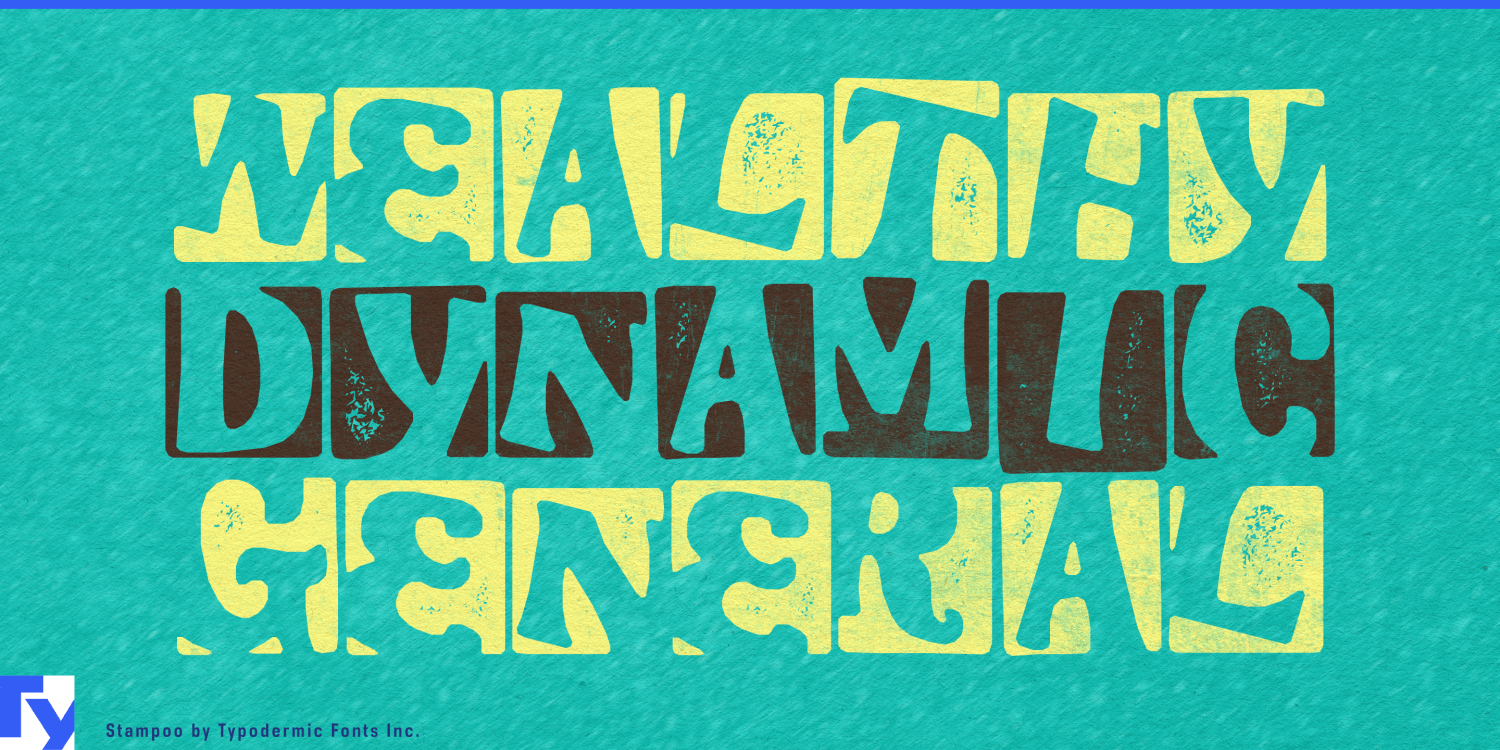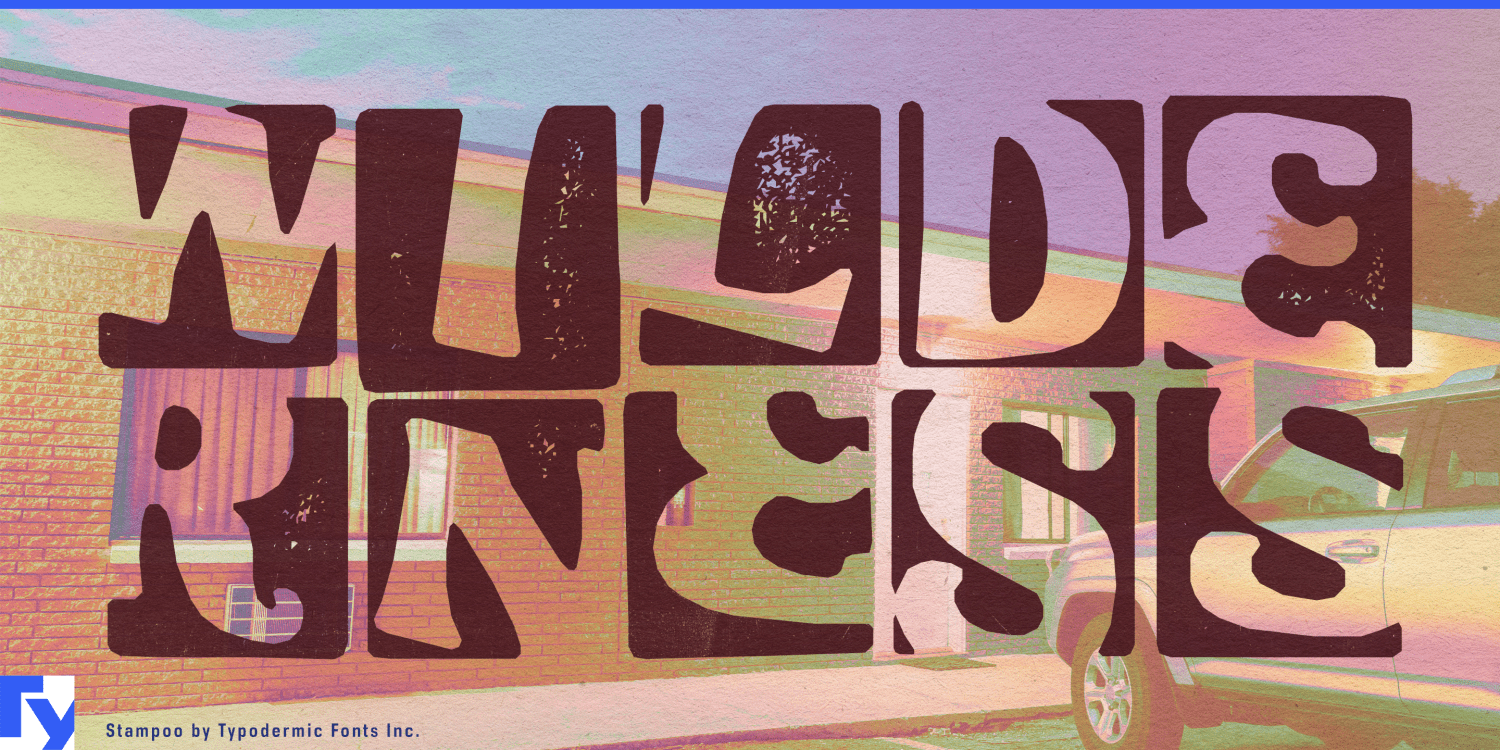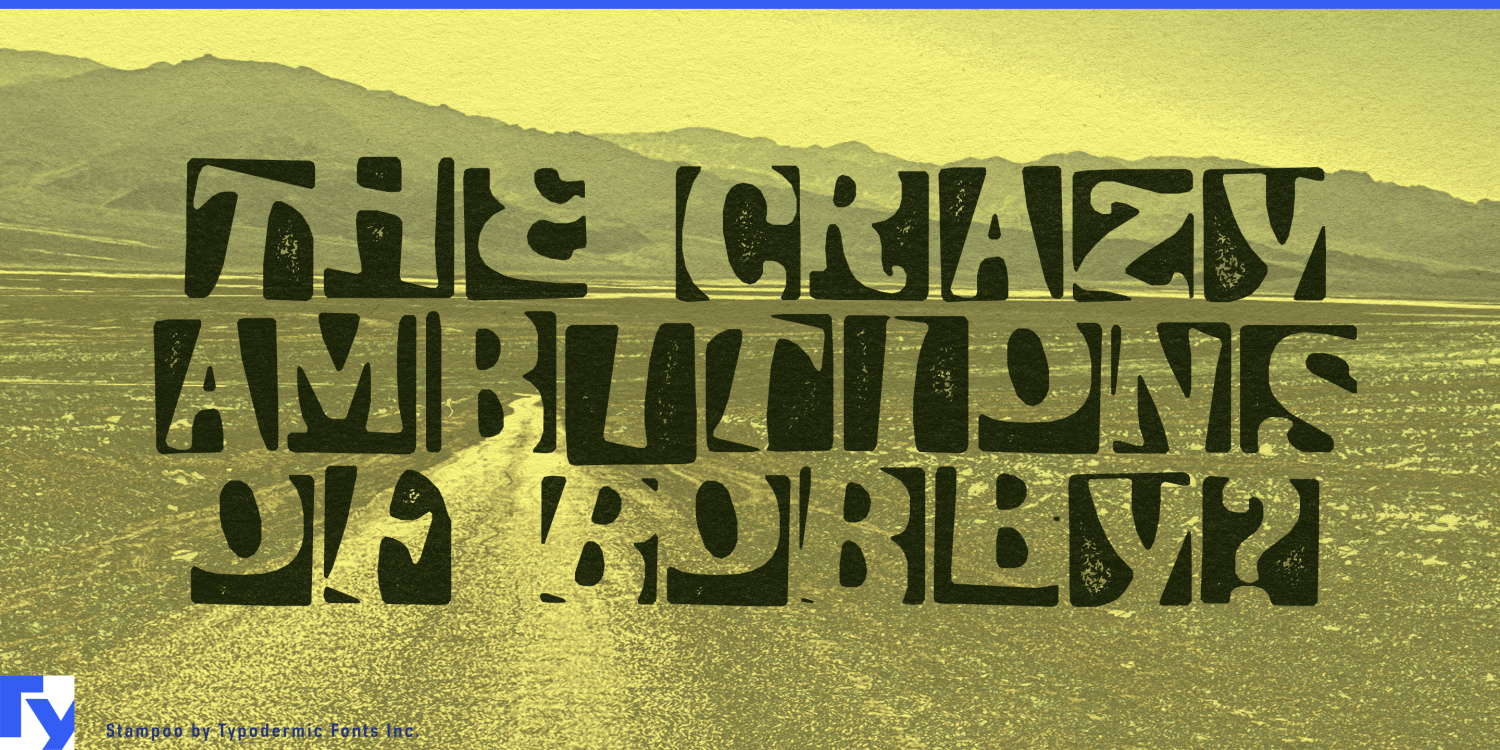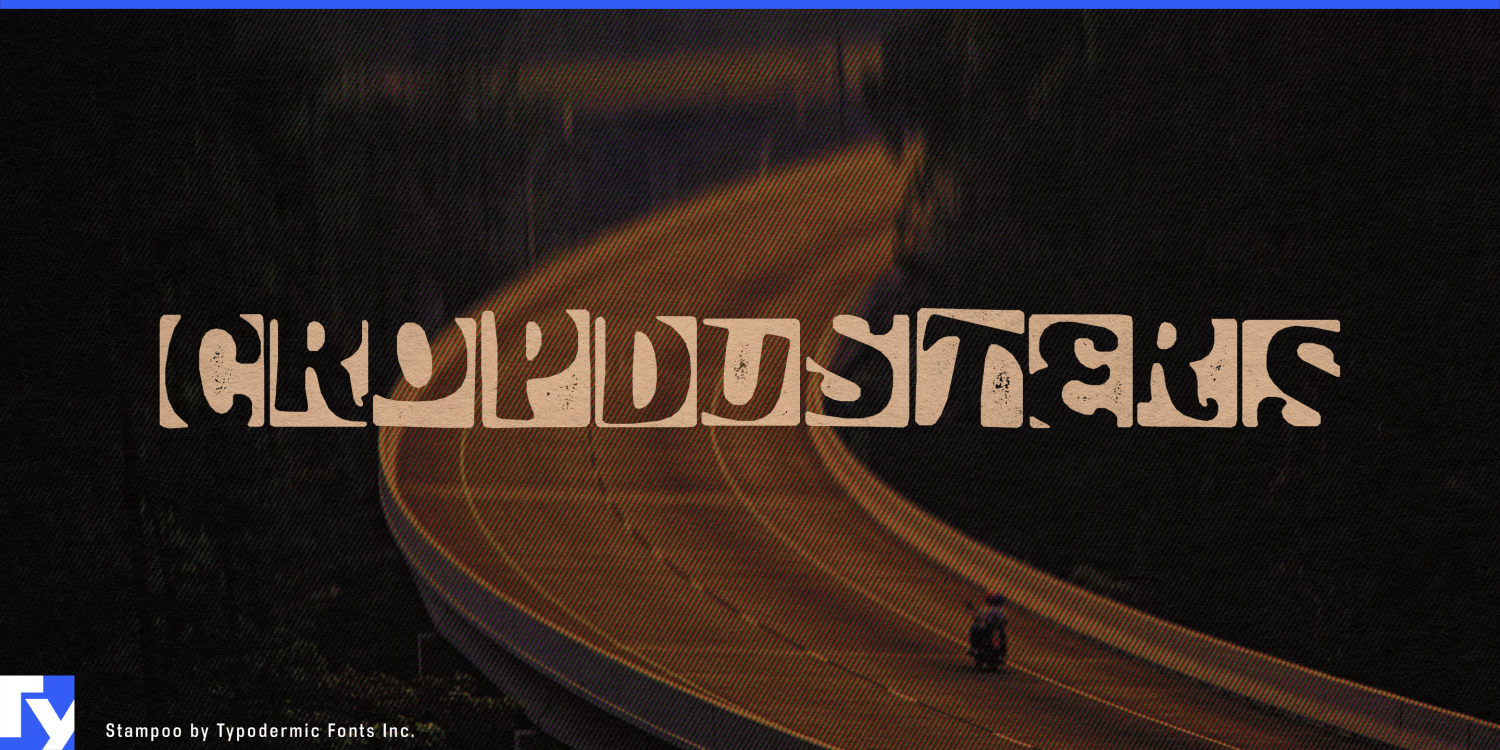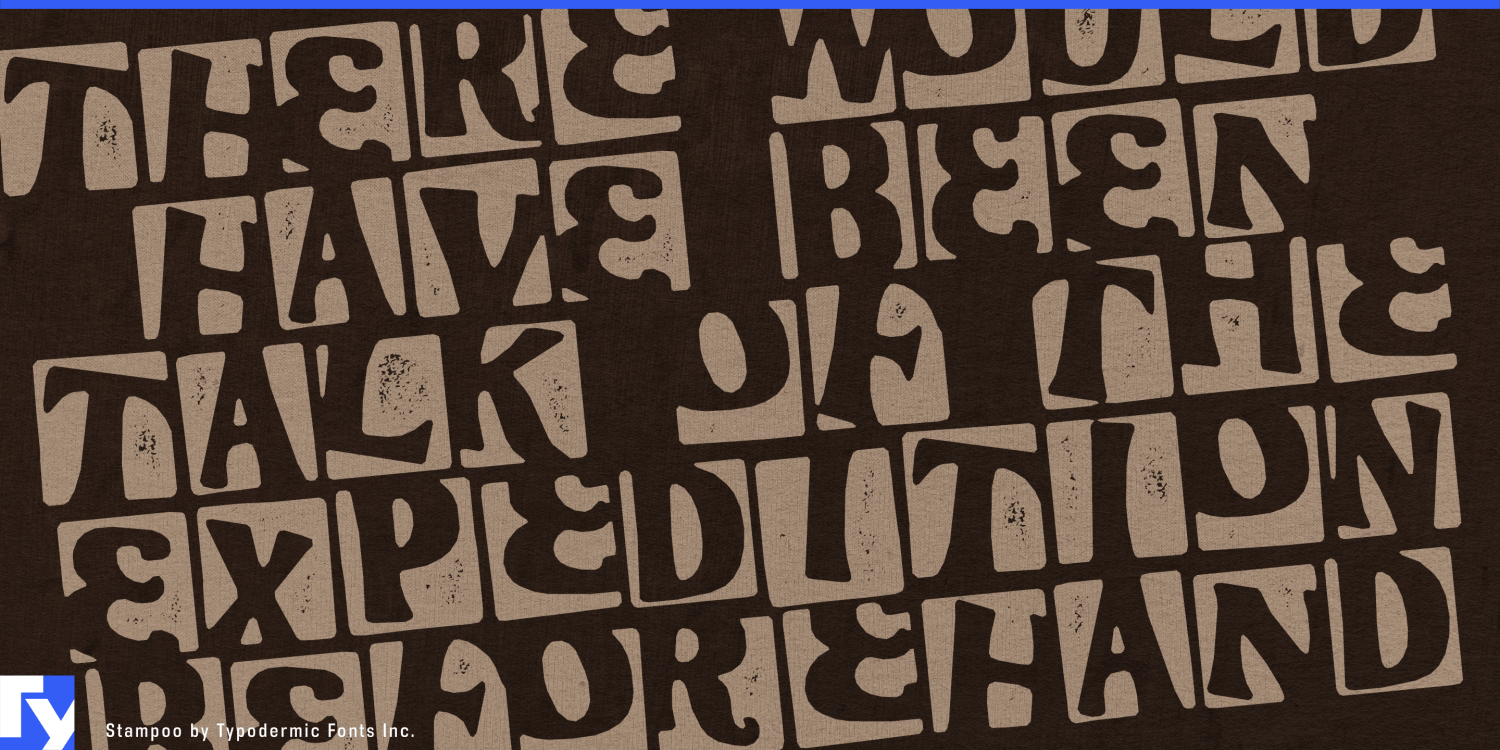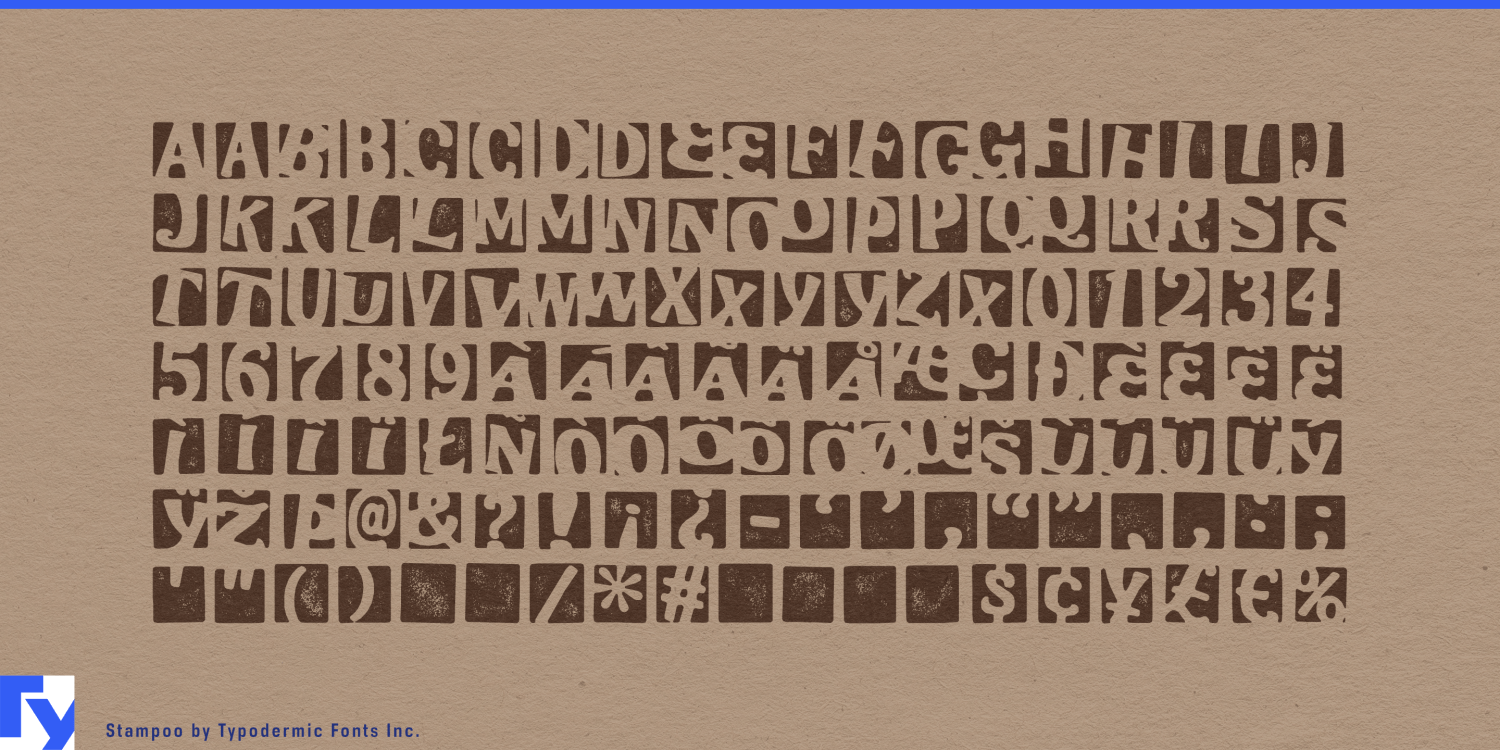
Stampoo
Buy NowStep right up to Stampoo, the typeface that’s stomping its way through the boundaries of conventional design! This is a riotous parade of inky characters marching across your page with gleeful abandon.
Imagine letters that look like they’ve been carved from rubber, dipped in ink, and enthusiastically slammed onto your document by a typographic madman. Stampoo’s letterforms are delightfully unpredictable, each one a unique impression that seems to have a life of its own. It’s as if your alphabet decided to throw a wild party and invited only the most eccentric guests. With Stampoo, your words don’t just sit on the page—they dance, they wiggle, they make faces at passersby. The curvaceous, hand-crafted feel of each character turns every sentence into a playful romp through a field of linguistic whimsy. It’s the typographic equivalent of skipping through a puddle of ink—messy, joyful, and utterly liberating.
But Stampoo’s quirkiness isn’t just skin deep. Activate those OpenType ligatures, and watch as letter combinations transform into bespoke pairs, creating a flow as natural and unexpected as ink bleeding into paper. It’s like your text has come alive, each word a unique creature capering across the page. This typeface speaks the language of fun in a babel of tongues, supporting a wide array of Latin-based European writing systems. From Afrikaans to Zulu, Stampoo maintains its charmingly offbeat personality, ensuring your message leaves an indelible impression no matter the language.
Choose Stampoo when you want your designs to break free from the shackles of typographic conformity. Use it for projects that demand attention, provoke smiles, and challenge the status quo. It’s perfect for quirky branding, eye-catching posters, or any design that needs a hefty dose of personality. Watch as it gleefully stomps all over convention, leaving a trail of inky, joyful chaos in its wake.